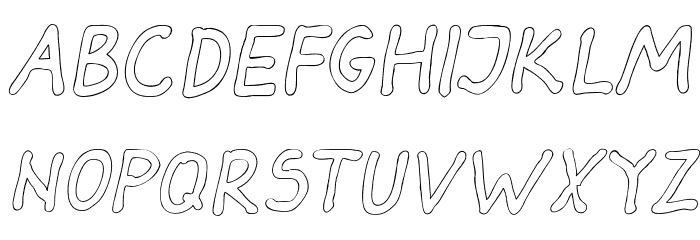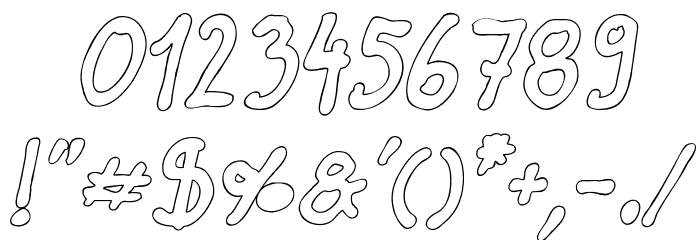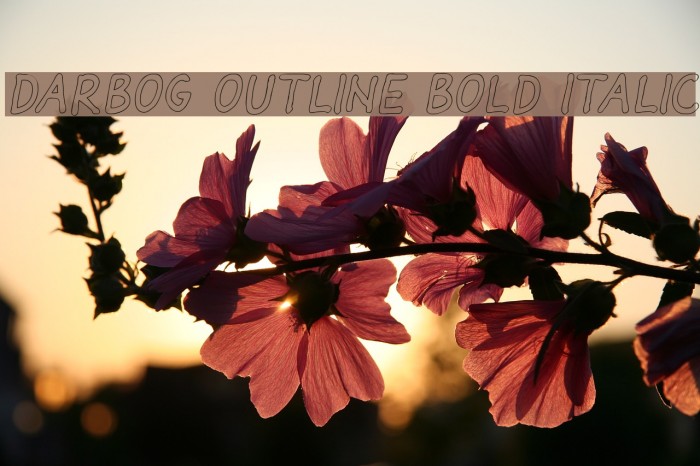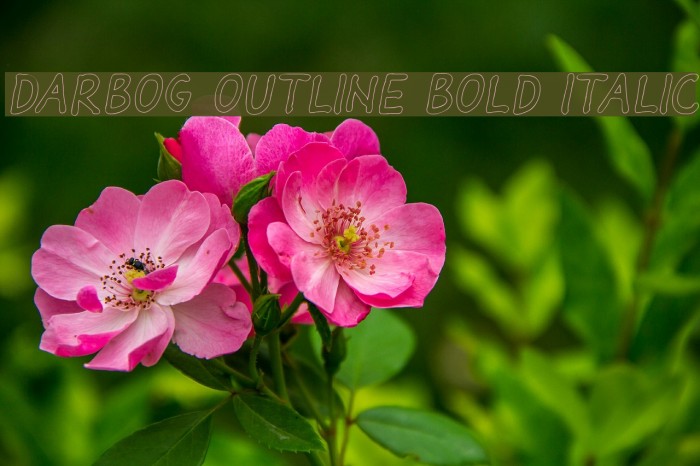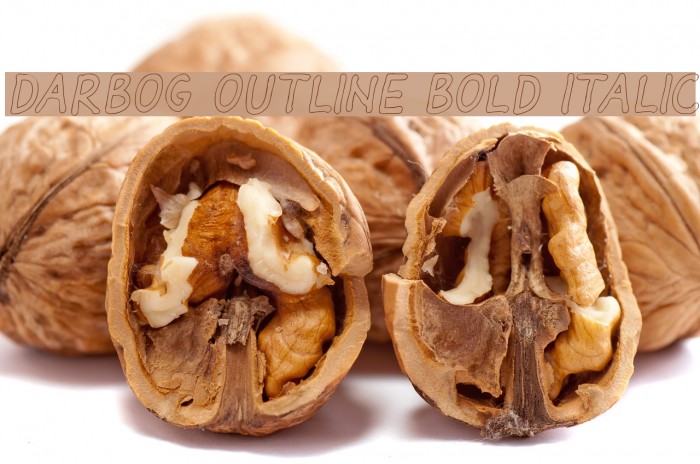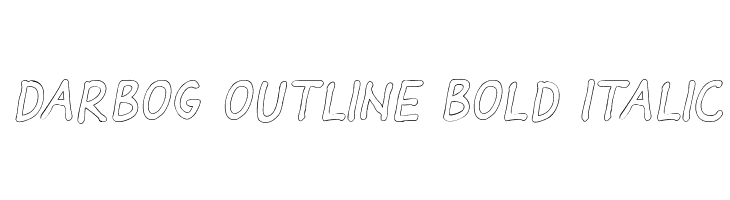
Darbog outline Bold Italic Font
This font features a bold and italicized outline style, giving it a distinctive and eye-catching appearance. The characters are crafted with a playful yet structured design, making them stand out with their thick outlines. The uppercase and lowercase letters maintain a consistent style, with smooth curves and a slight slant that adds dynamism. The numbers and special characters follow the same design principles, ensuring uniformity across all elements. This font's unique outline style makes it suitable for creative and bold design projects.
A bold, italicized outline font with playful, structured characters.
- Proposed Projects: Ideal for posters, headlines, branding, and any project requiring a bold, creative touch.